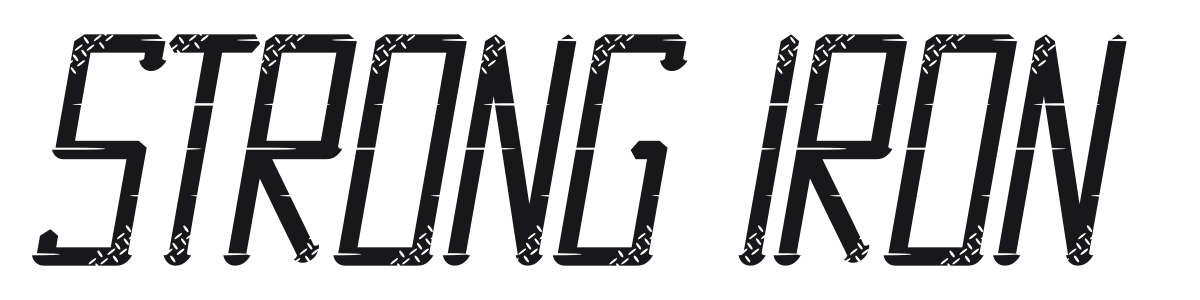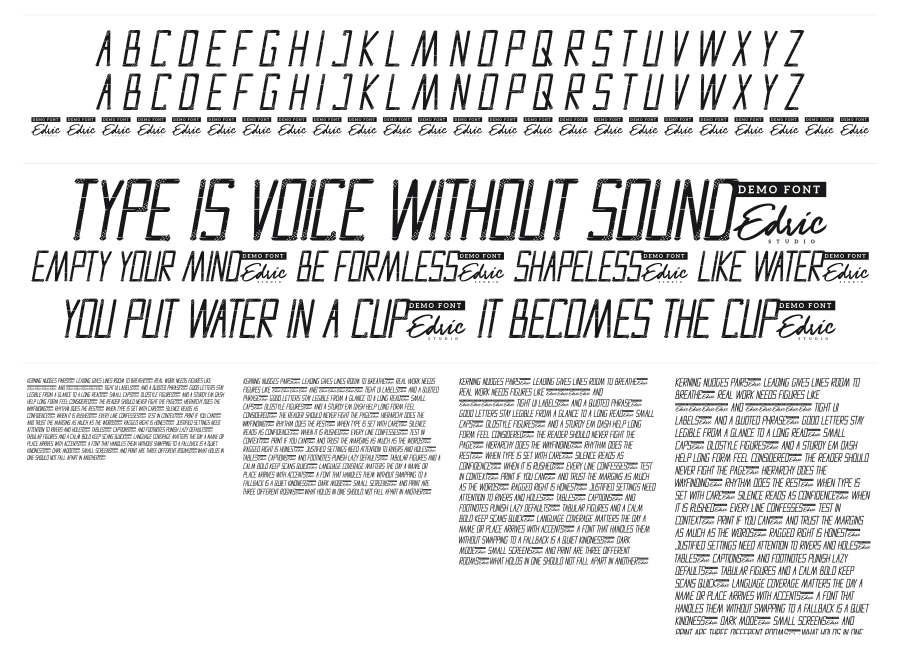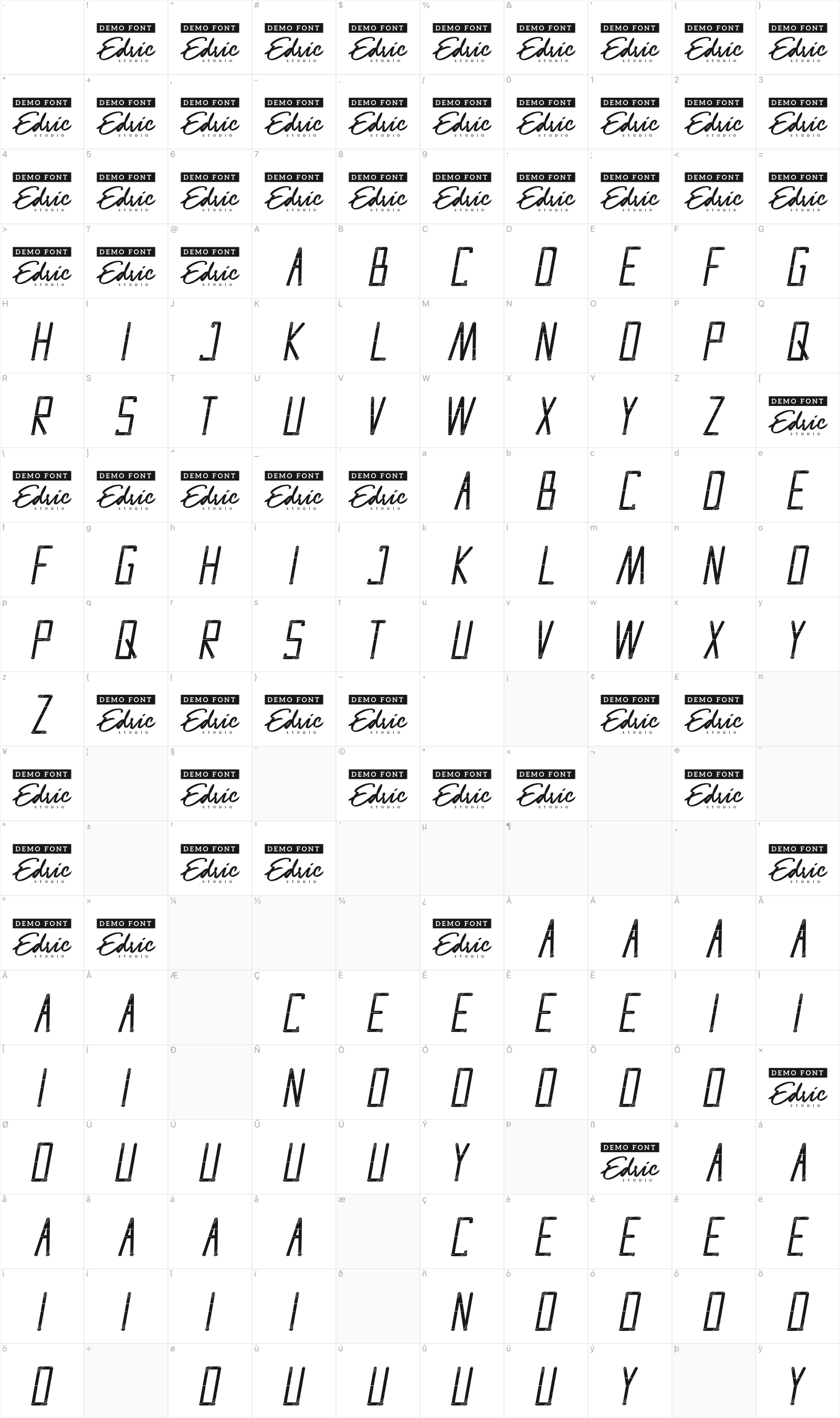
Strong Iron
Strong Iron is a bold condensed italic display face with a forged-metal texture running through every stroke. Decorative knot or rivet details at stroke junctions give it the look of woven iron or chain mail, somewhere between armor and industrial signage. It carries serious weight without tipping into pure grunge.